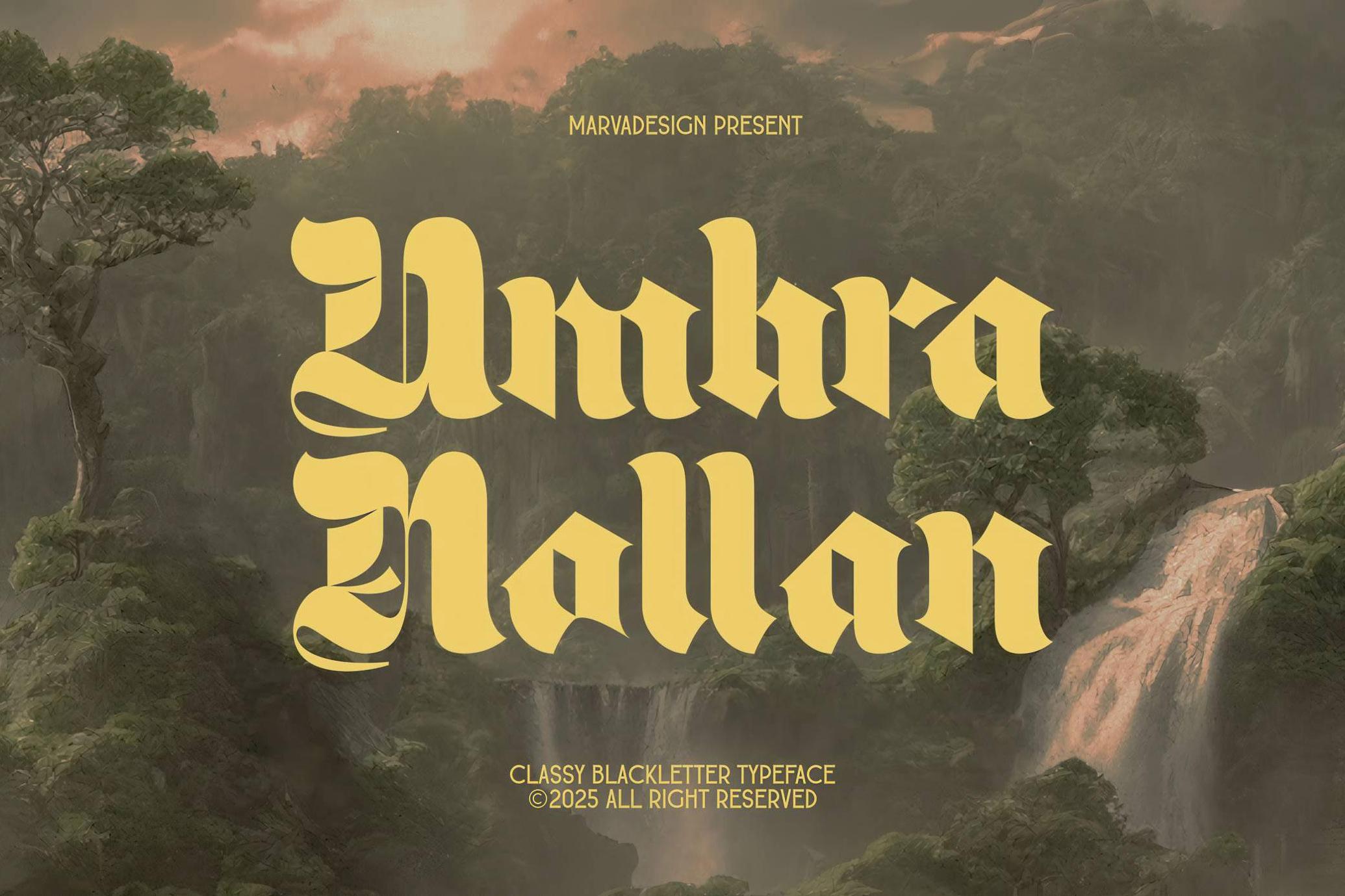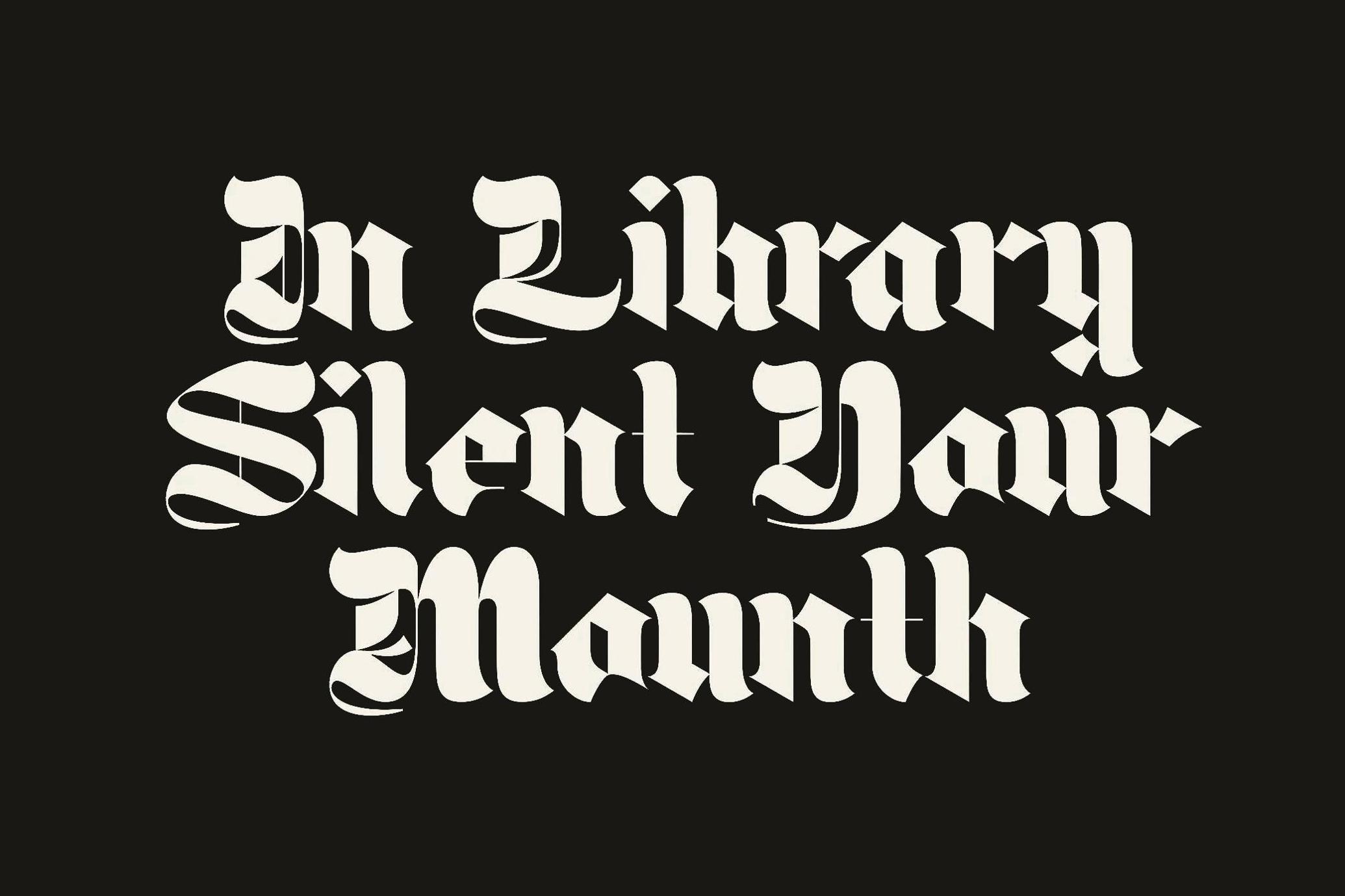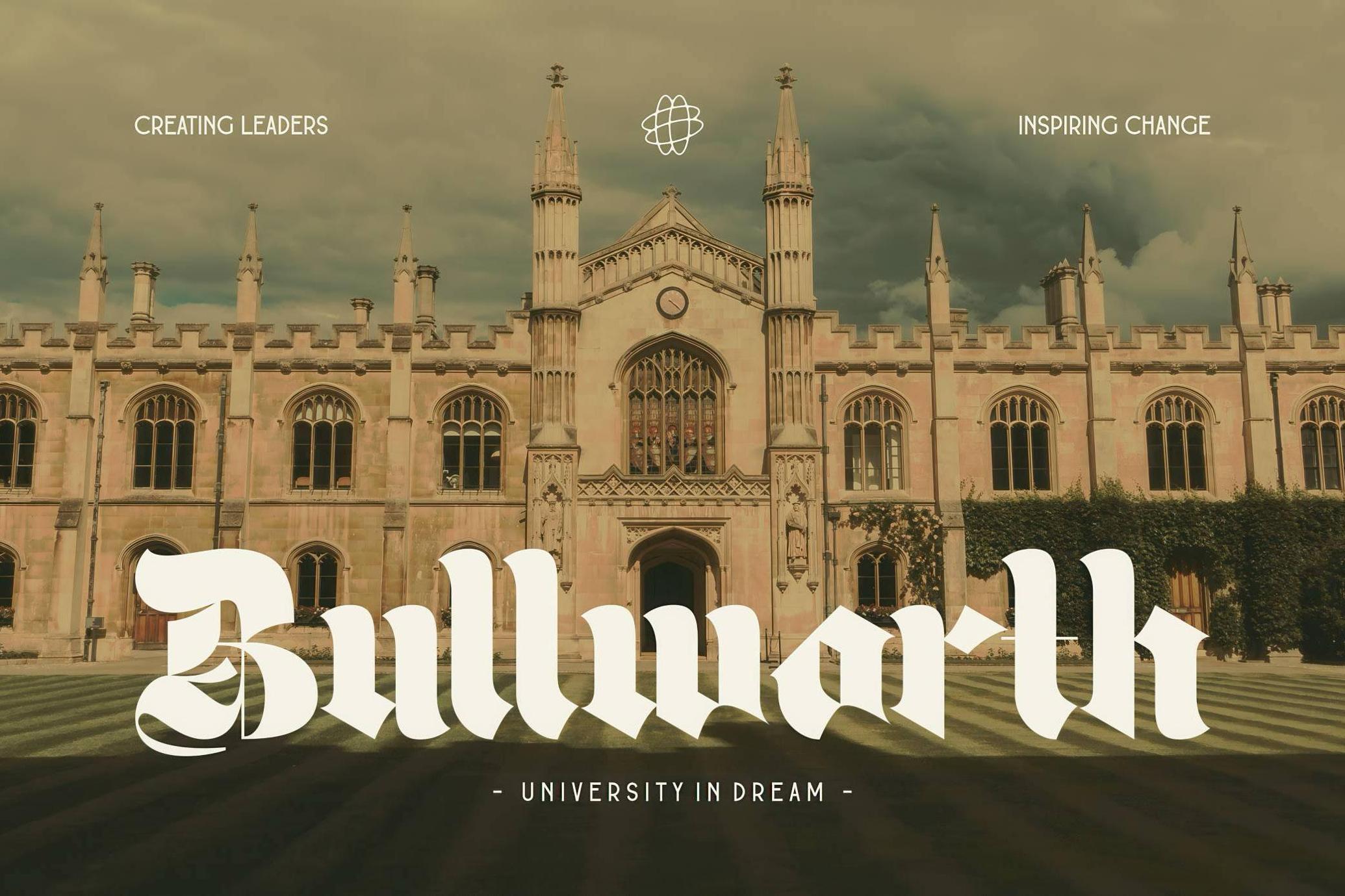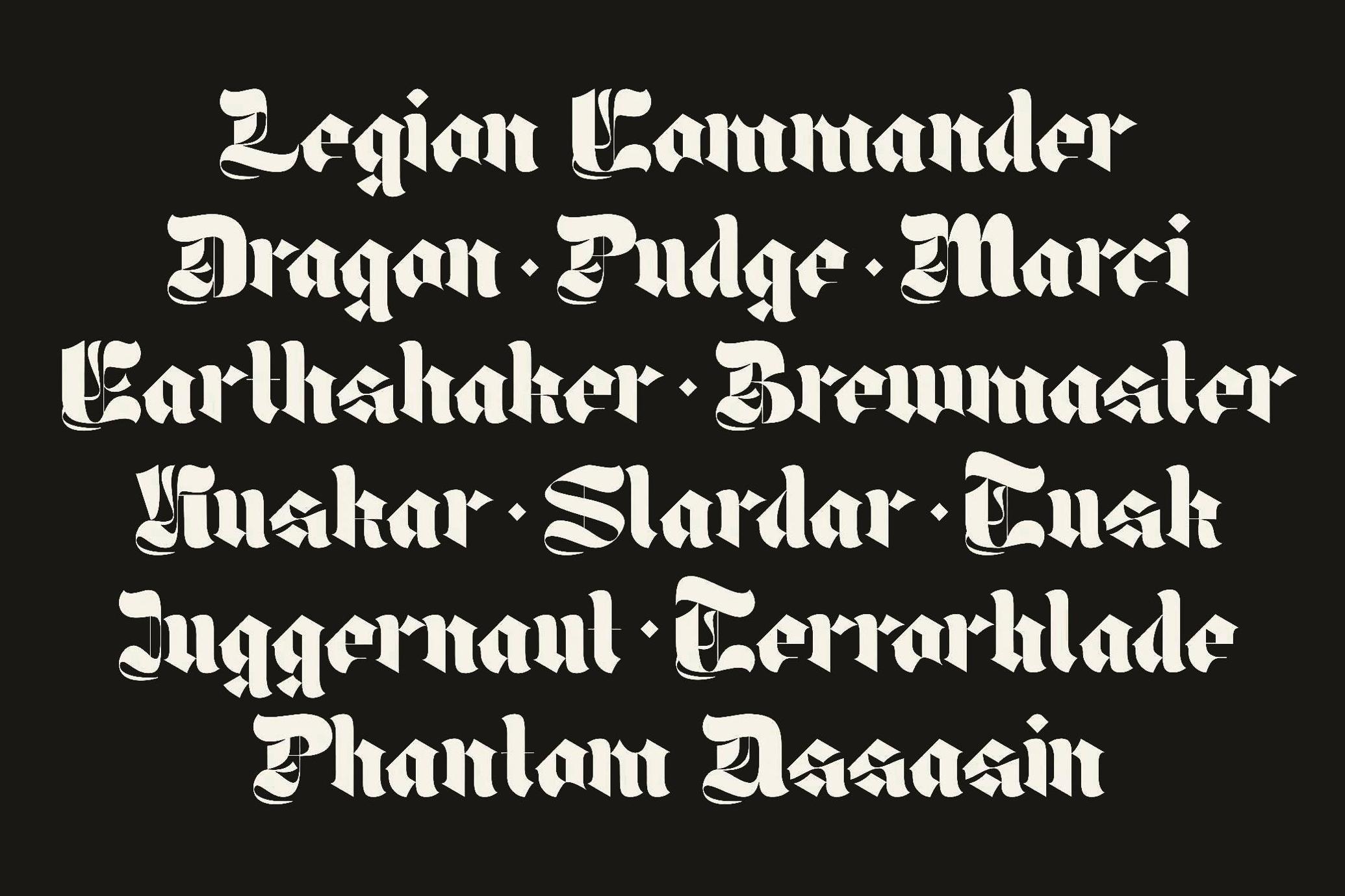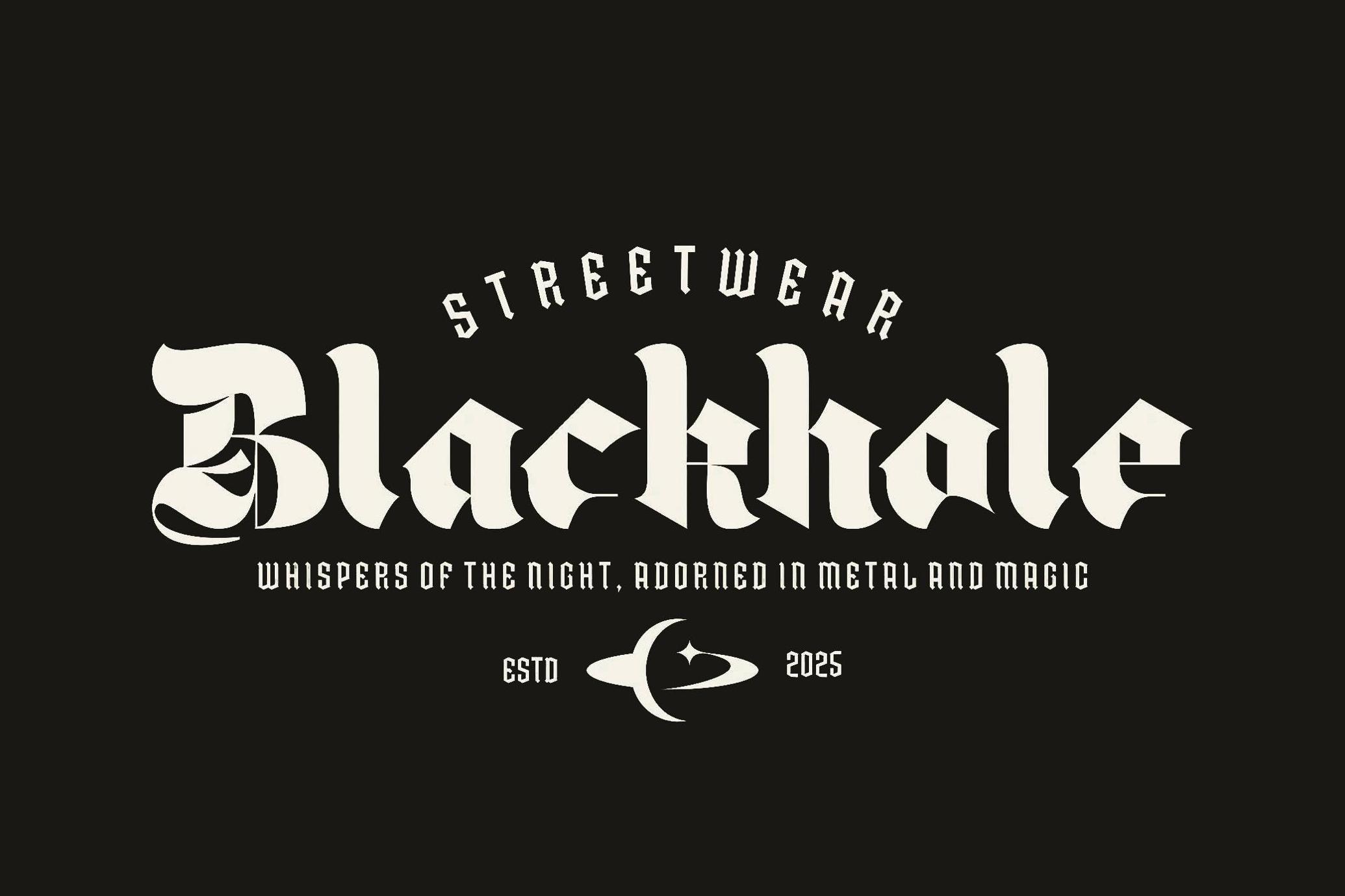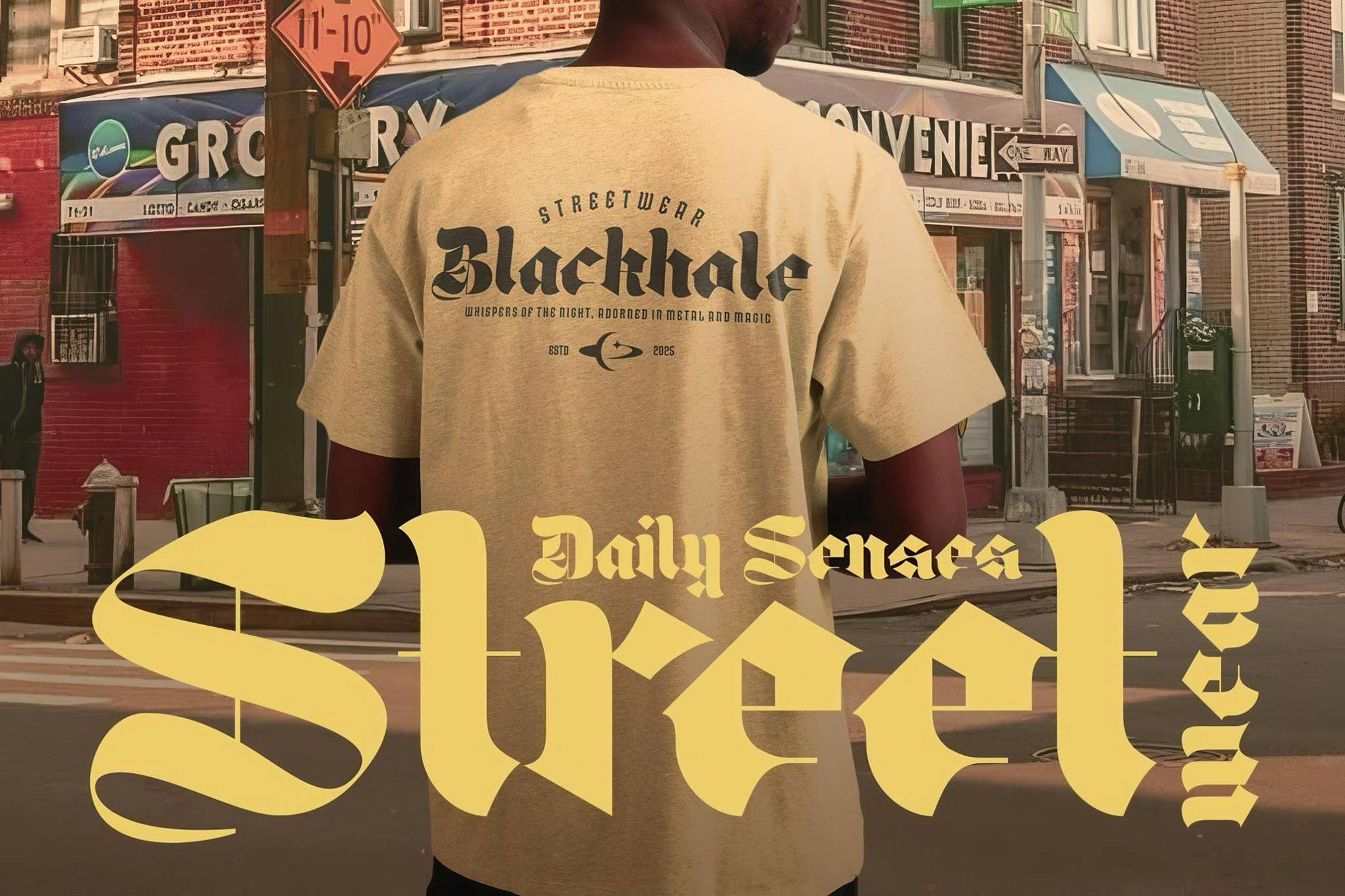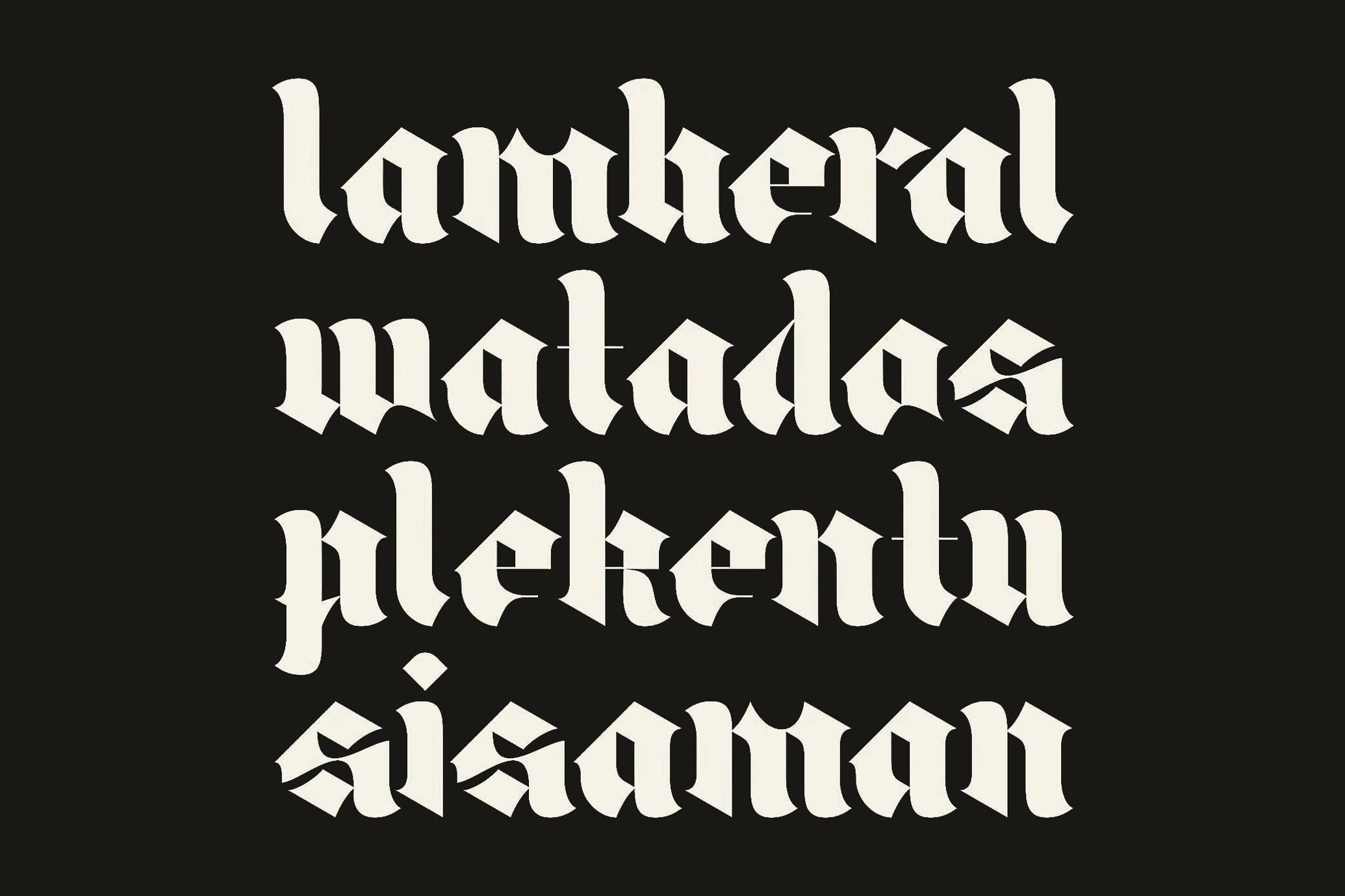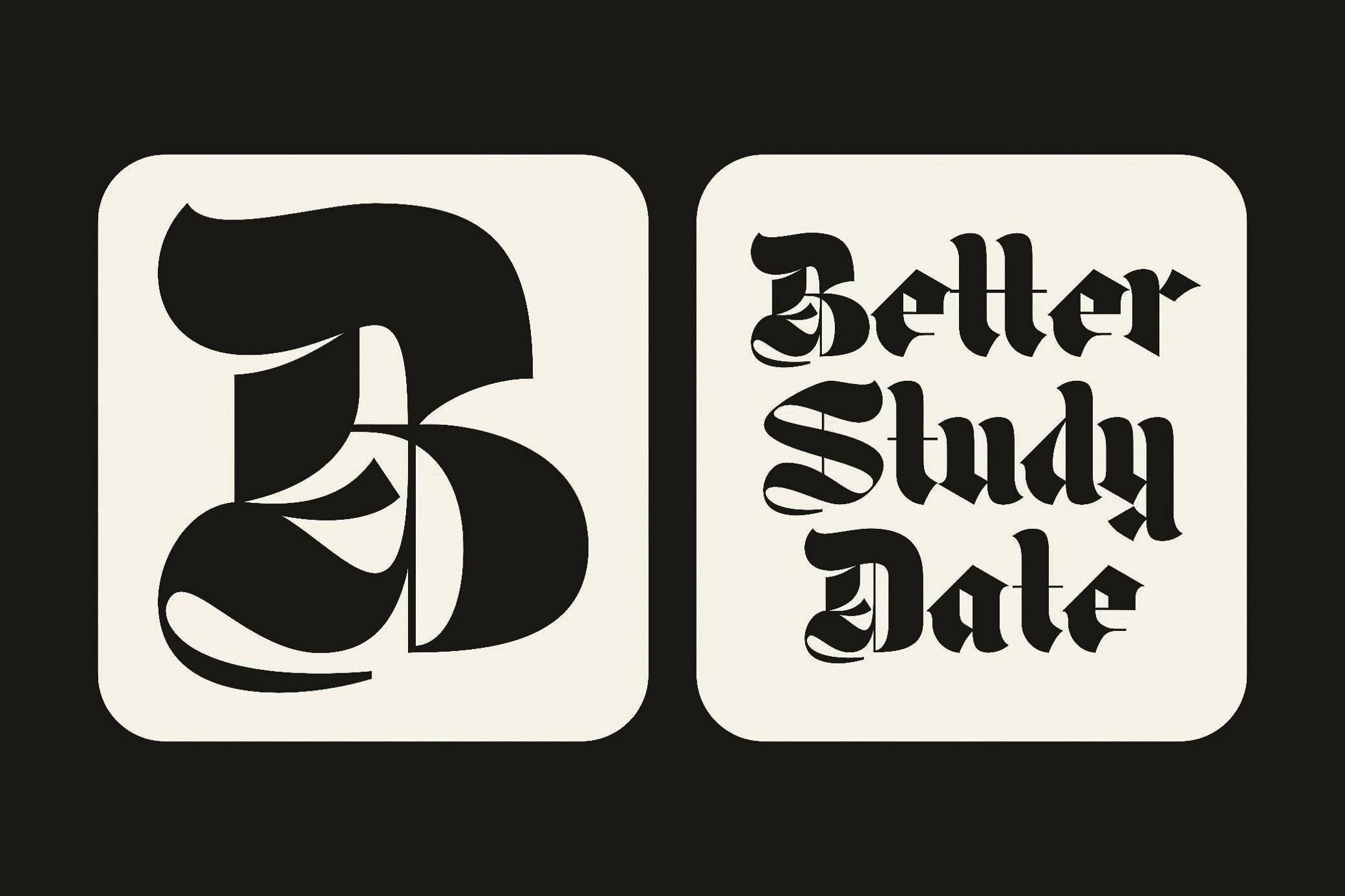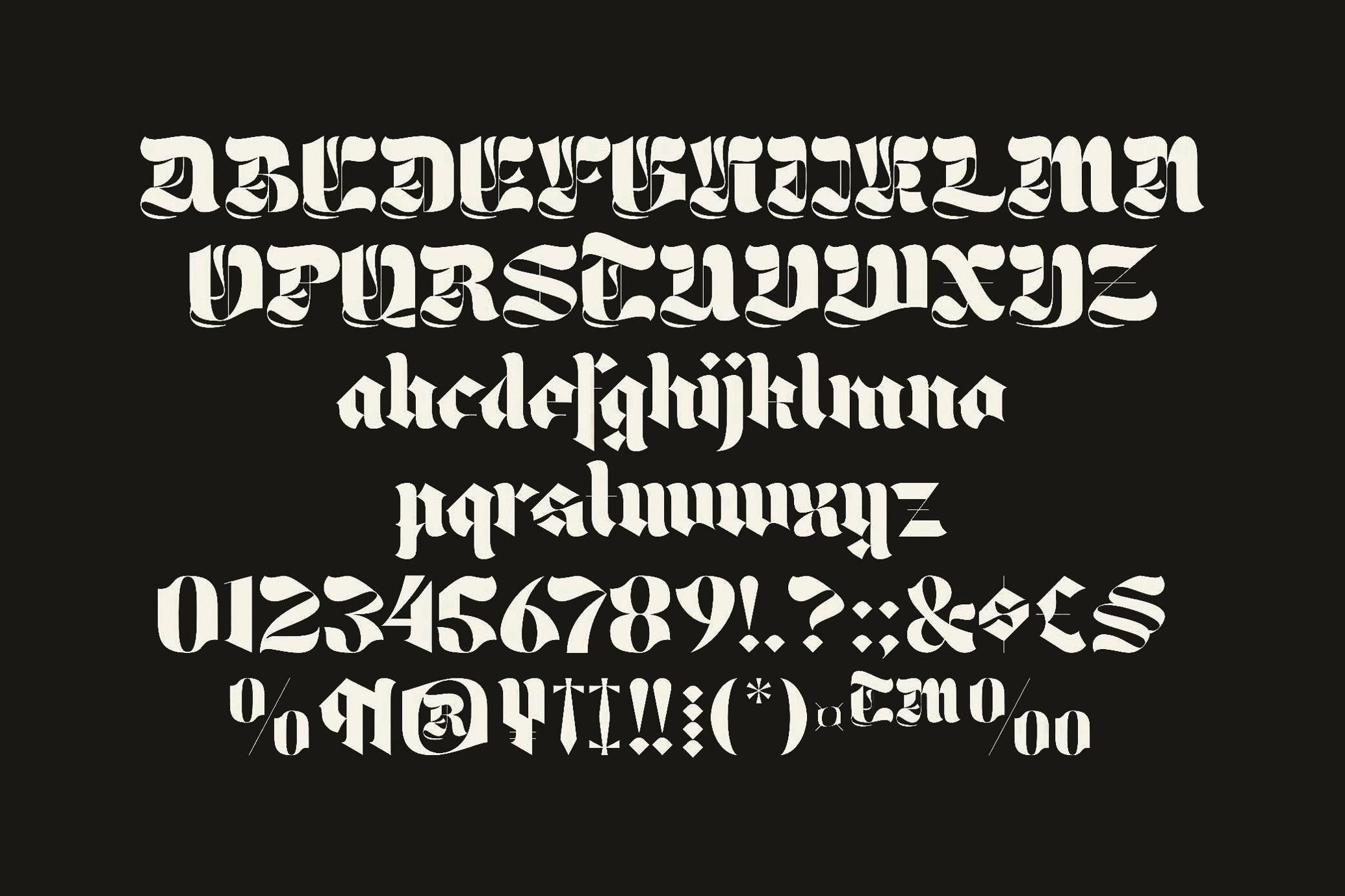
Umbra Nollan Blackletter Type
Umbra Nollan
Hear ye, hear ye! Umbra Nollan has descended from the ancient scrolls of typographic might — but now with a side of attitude and a wardrobe full of hoodies. Forged with steel-edged glyphs and the stubbornness of a knight who refuses to lowercase his tone, this blackletter beast is no relic. It’s a battle cry wrapped in ligatures, ready to mark your banners, mixtapes, and drop collections with royal menace.
The font fits for scrolls or streetwear. Whether you’re branding a sacred hip-hop chapel or designing a logo sharp enough to slice chainmail, Umbra Nollan delivers. Uppercase, lowercase, multilingual — because even your dragon-slaying brand needs global reach. Now saddle up, serifs — destiny (and your drop) await.